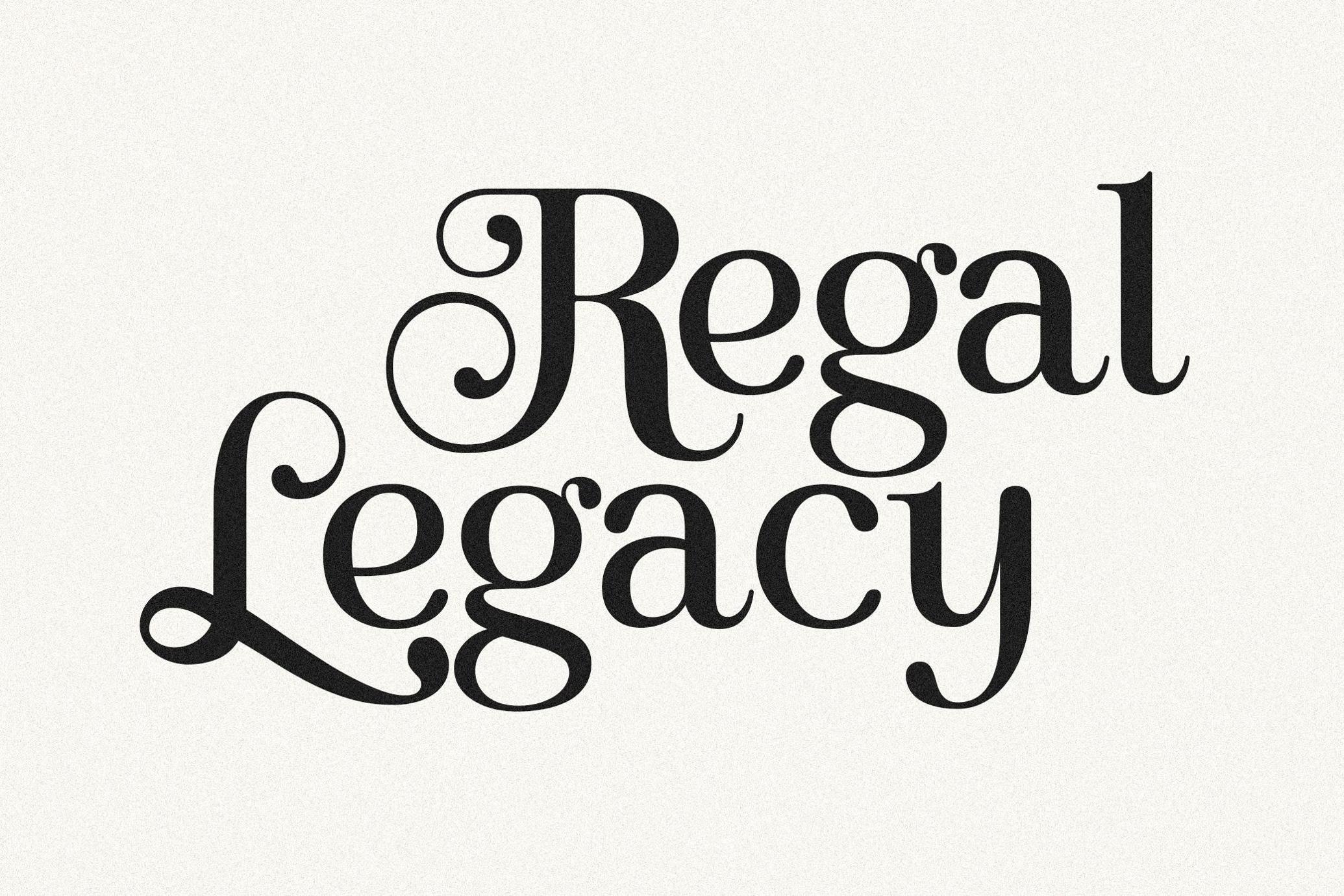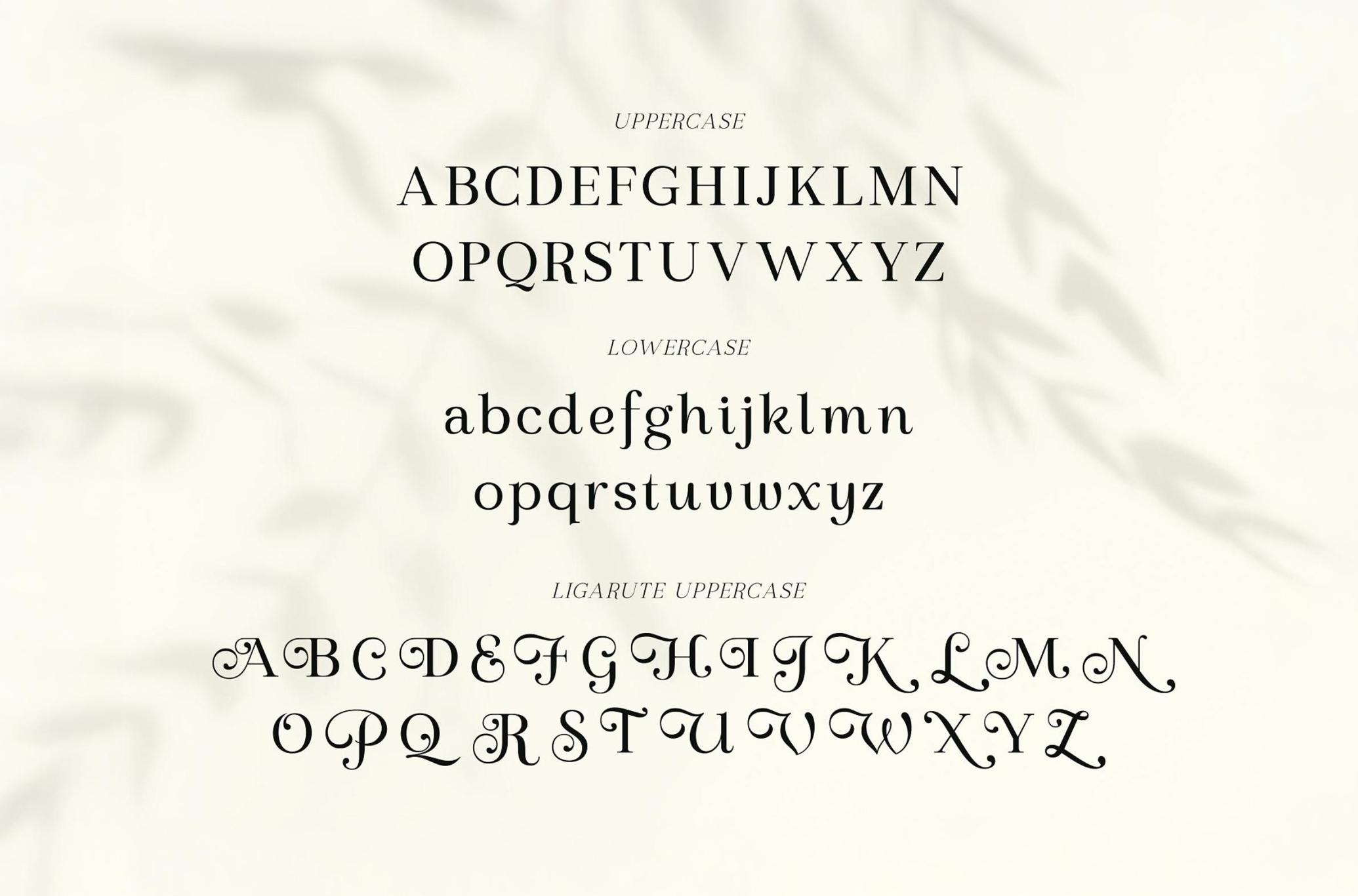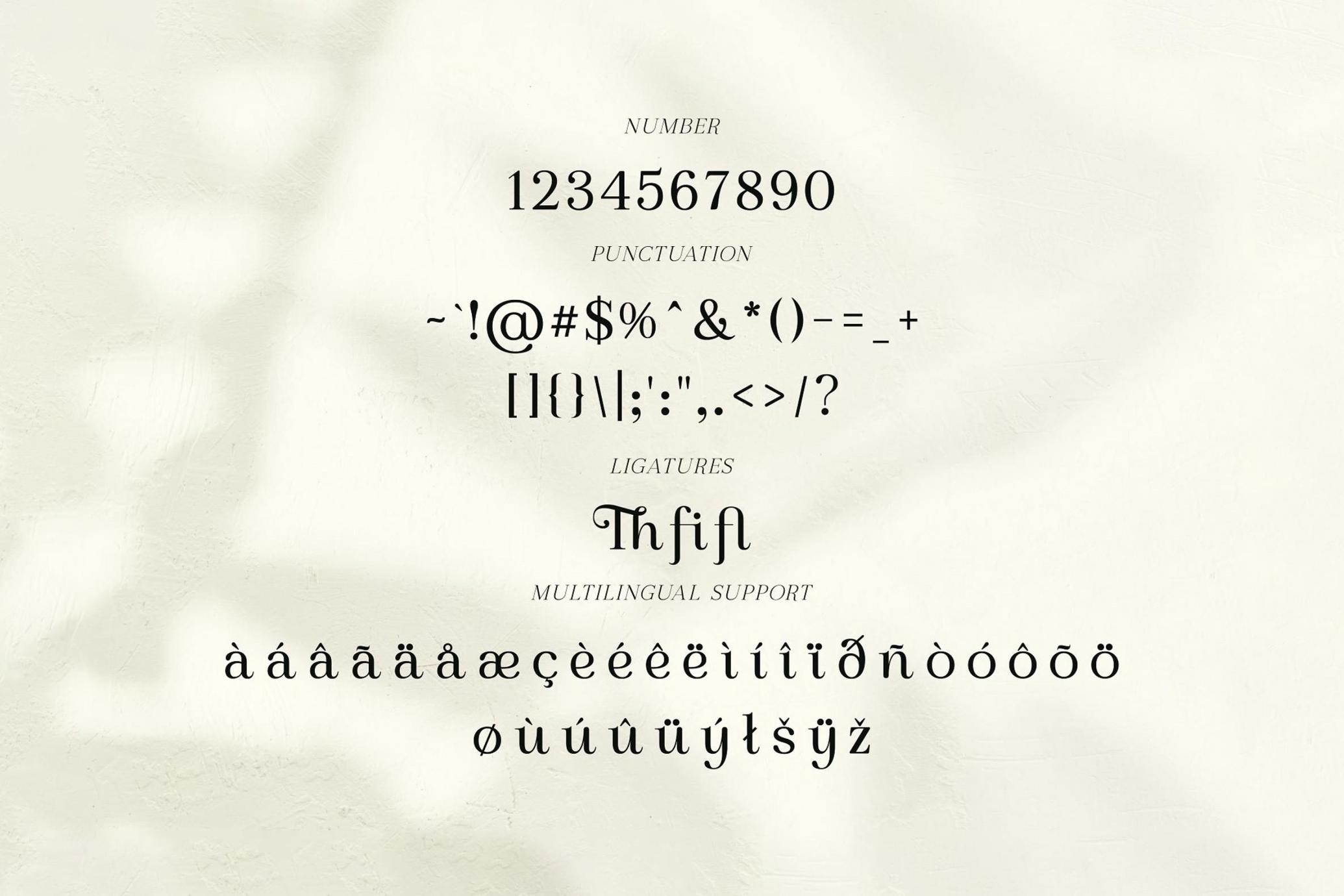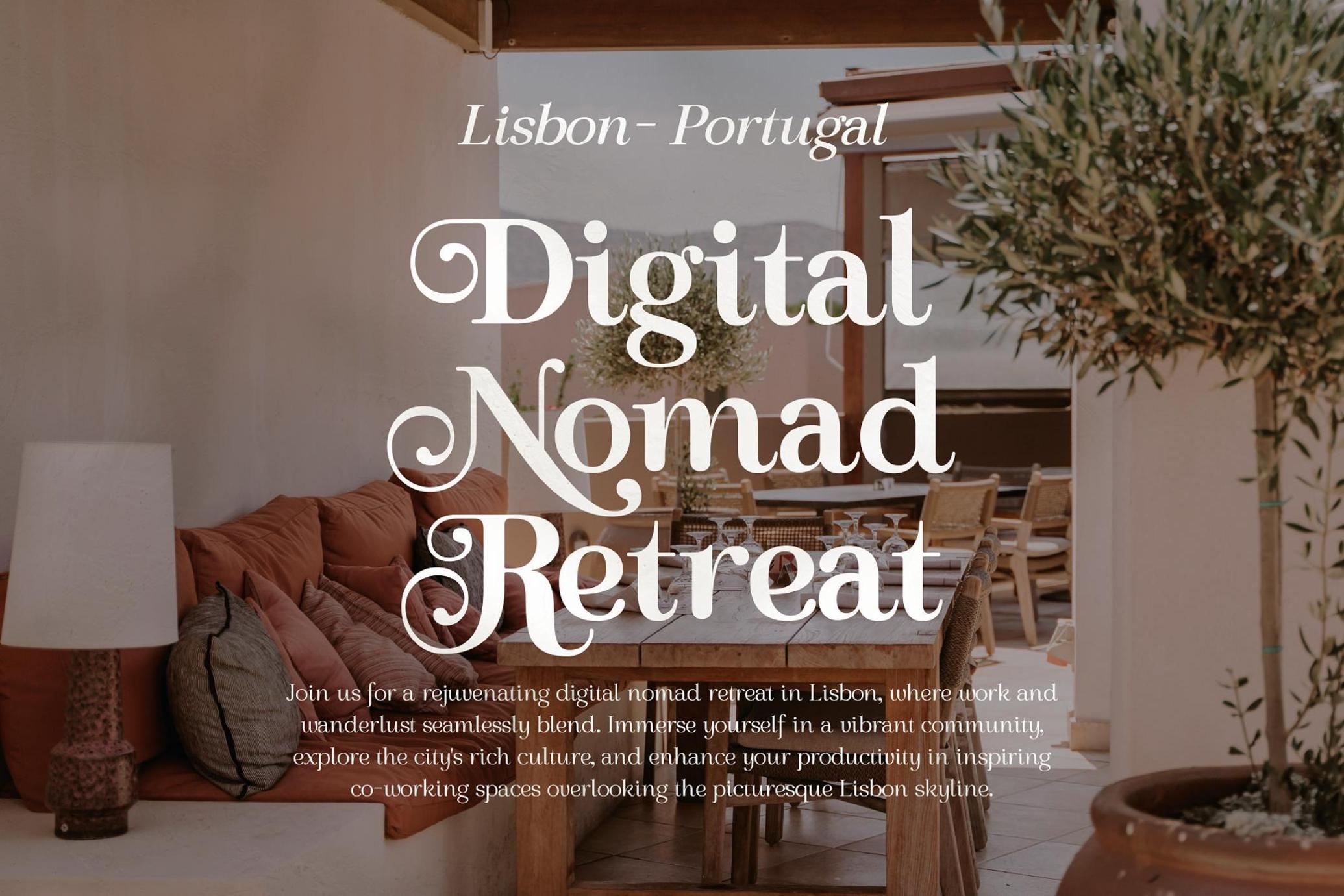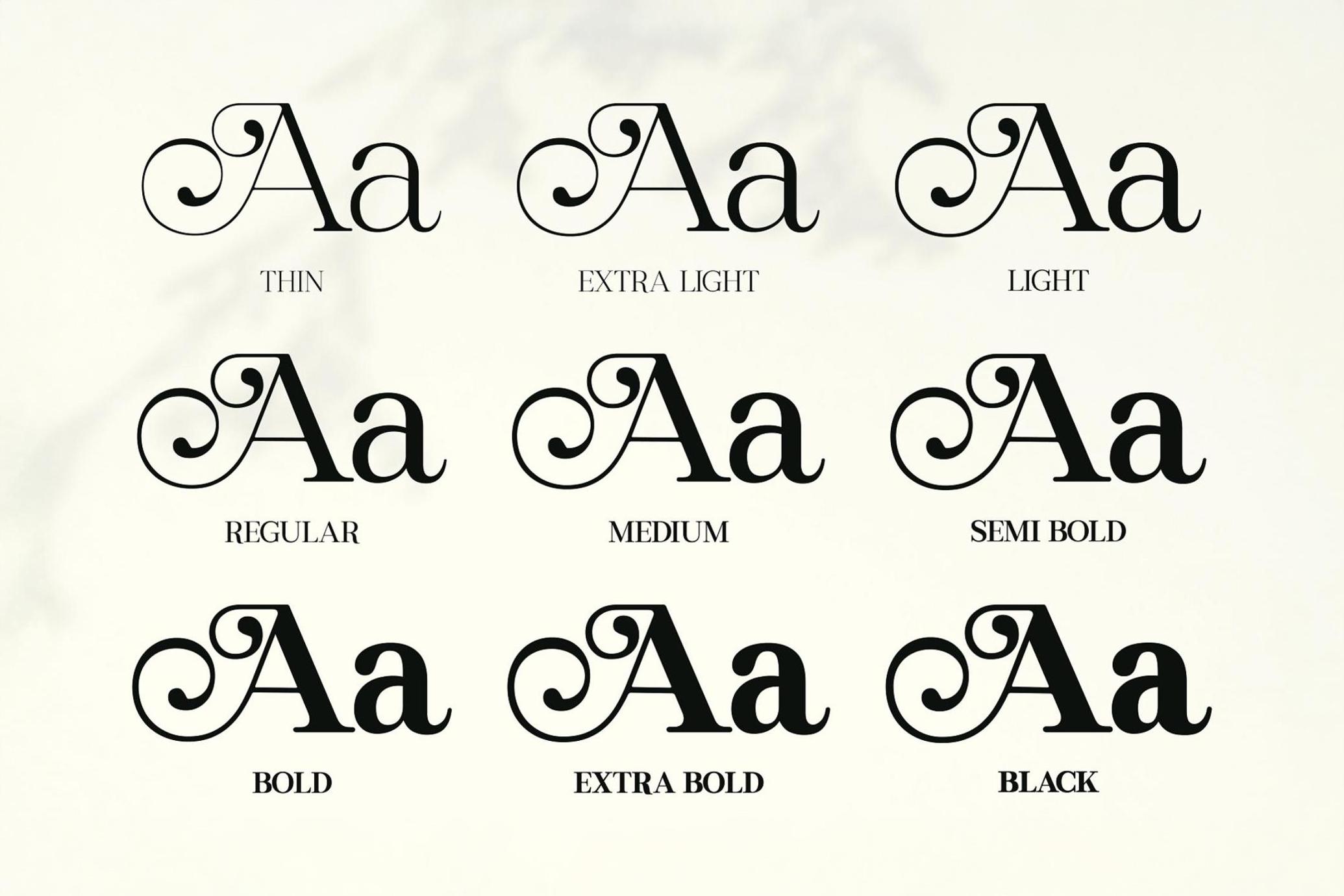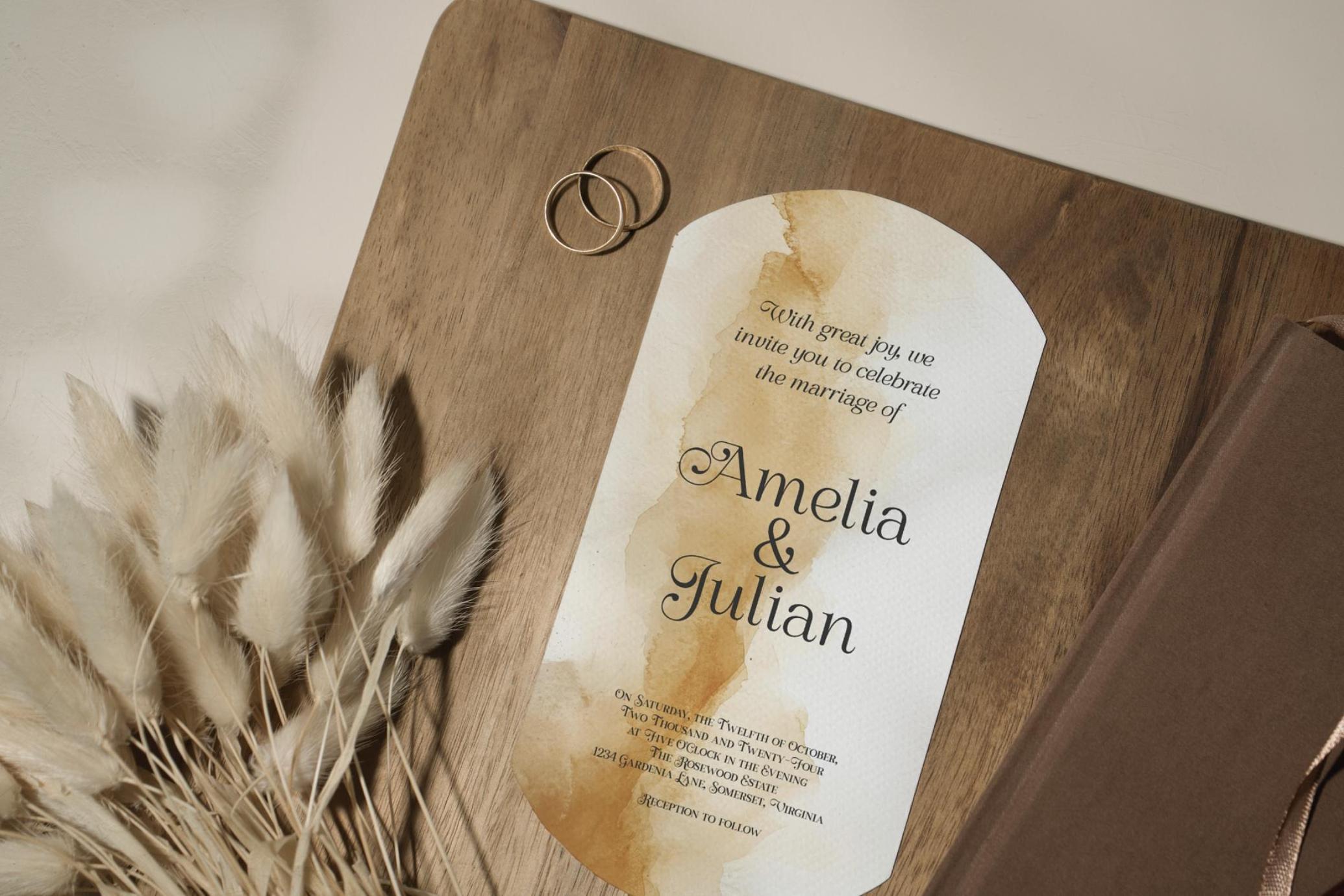
Regal Legacy - Elegant Typeface
Introducing Regal Legacy—where luxury meets timeless design. This is not just a typeface; it's a statement. Imagine your designs transformed by the elegance and sophistication of this exquisite serif, each letter dripping with class and refinement.
With Regal Legacy, every project becomes a masterpiece. Feel the power of a typeface that commands attention, exudes opulence, and elevates your work to new heights. Whether you're crafting high-end branding, creating stunning editorial layouts, or designing unforgettable wedding invitations, this font brings a touch of grandeur that is simply unmatched.
When you use Regal Legacy, you're not just choosing a font—you're embracing a legacy of elegance and luxury that will make your work stand out and leave a lasting impression. Step into a world where sophistication reigns supreme, and let Regal Legacy be the crown jewel of your design toolkit.